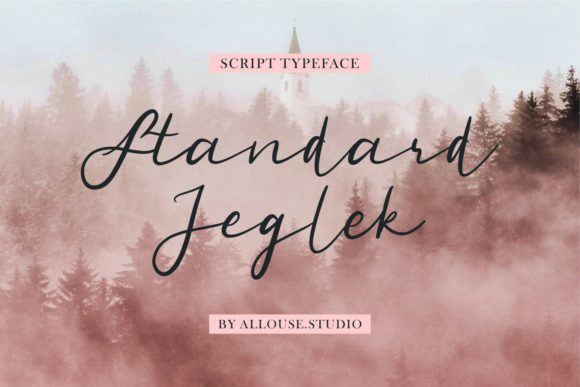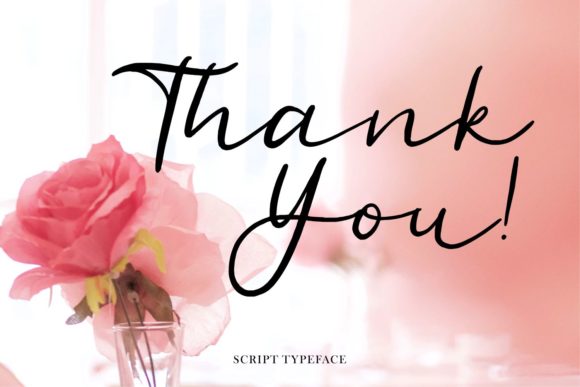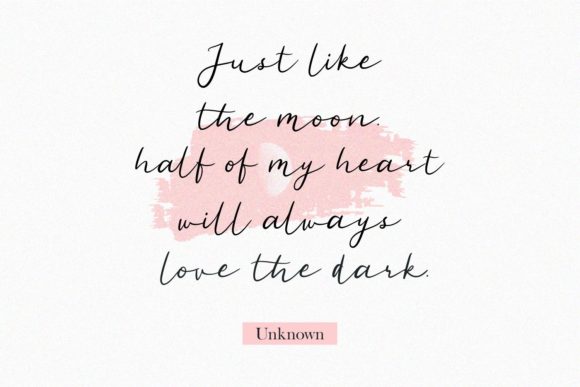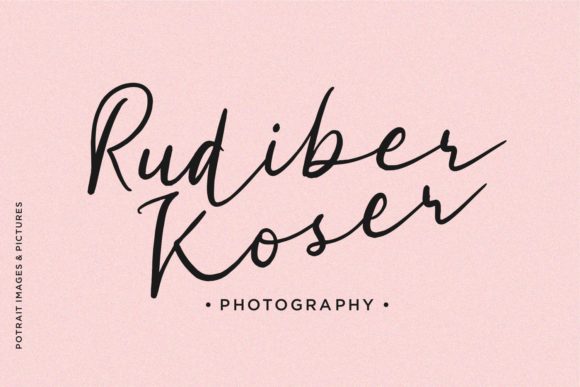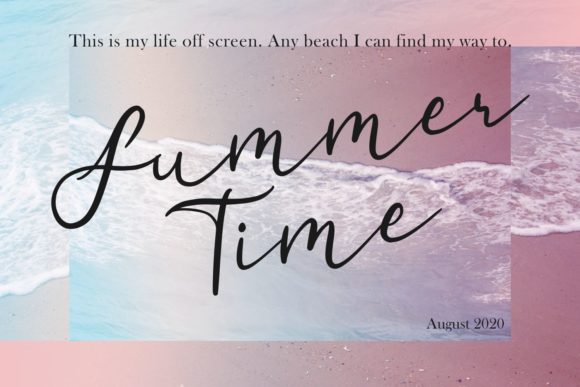
About Standard Jeglek Font
Standard Jeglek is a beautiful handwritten font, featuring a stylish and relaxed flow. It looks stunning on wedding invitations, thank you cards, quotes, greeting cards, logos, business cards and every other design which needs a handwritten touch.